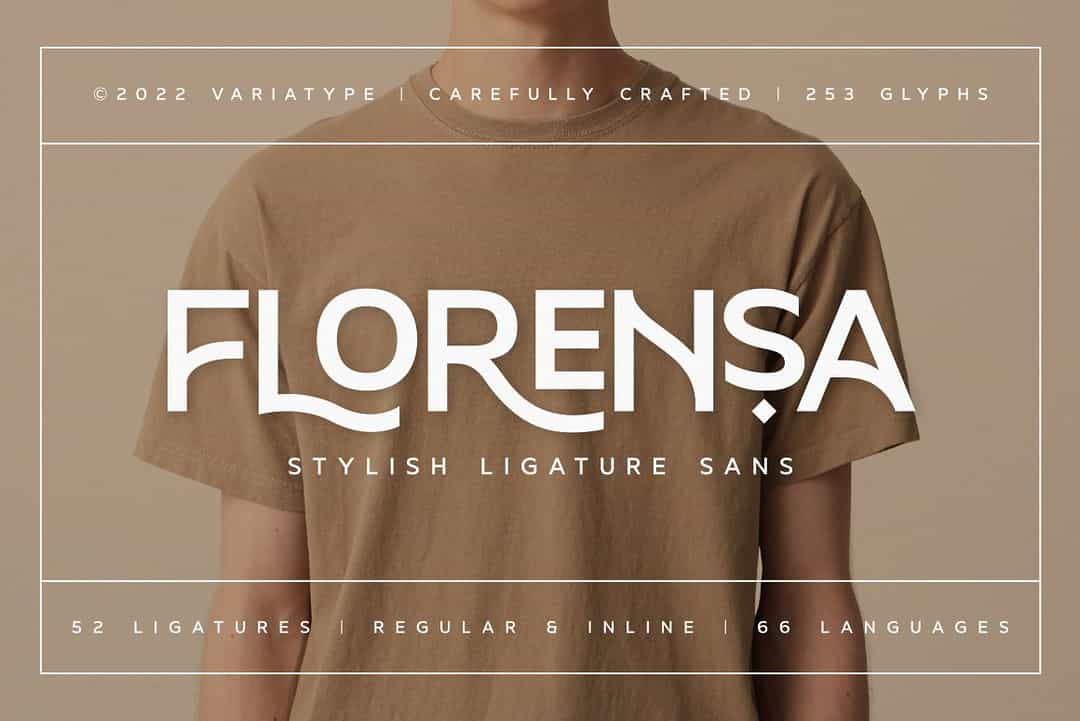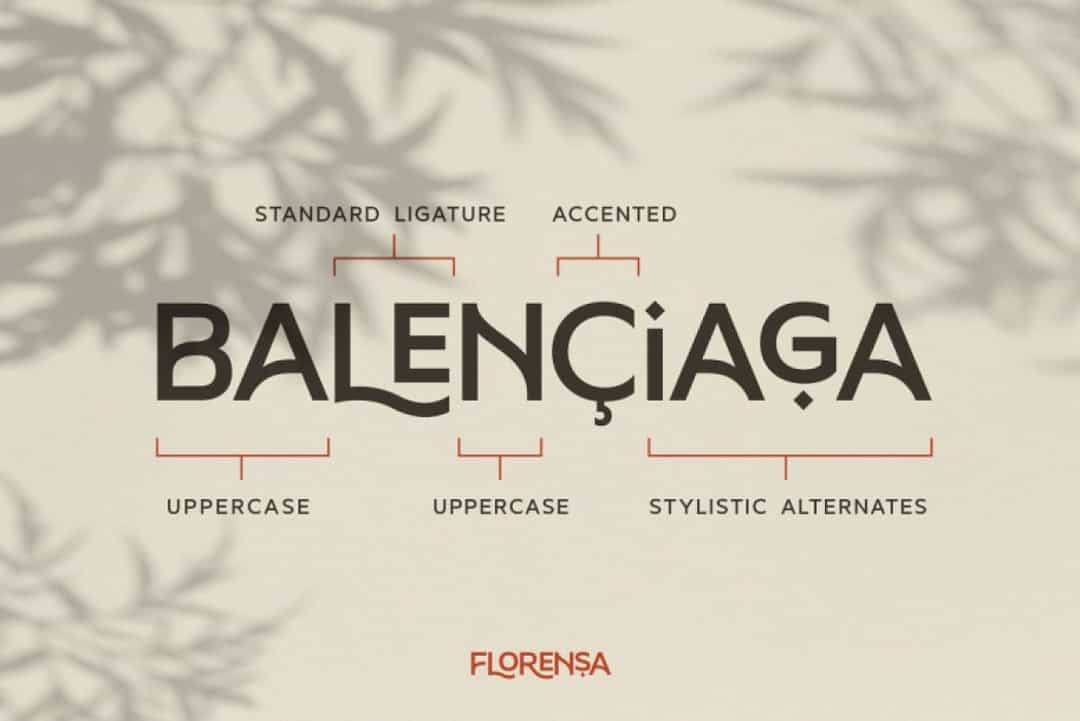
Florensa Sans Serif Font was designed with care and devotion for use in type design graphic design branding logotypes and more. Offering over 50 striking characters and ligatures for fresh style typography – Florensa will help elevate your design skills!